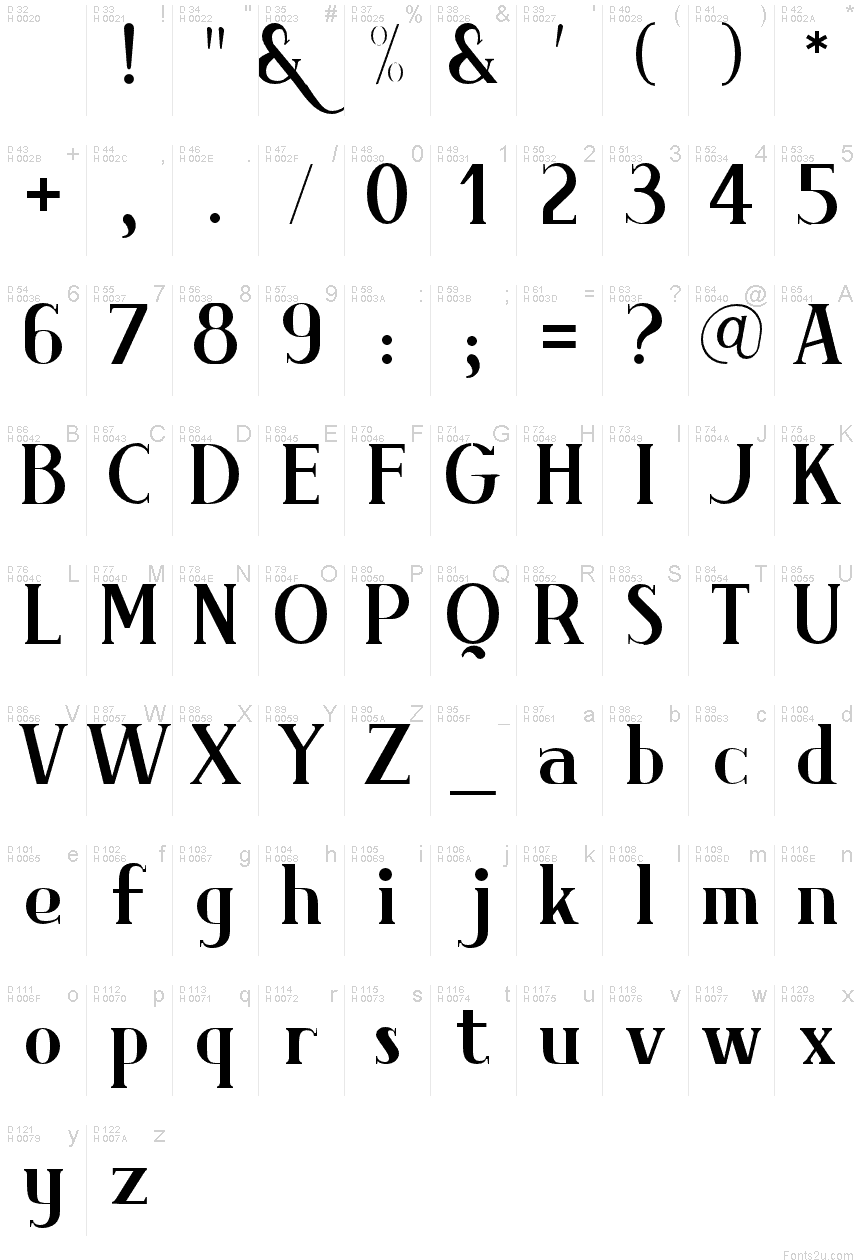
Brimborion Light is a free high-contrast serif font with an elegant, fashion-minded silhouette. Its tall letters combine fine hairlines with broad vertical strokes, and the sharply cut serifs lend the design a crisp, engraved quality. The proportions feel poised and formal.
As a theatrical title or refined editorial masthead, it can establish a sense of ceremony across fashion magazines, invitations, and luxury packaging. The dramatic stroke changes and stately shapes are especially suited to subjects involving couture, classical music, fine dining, or period drama.